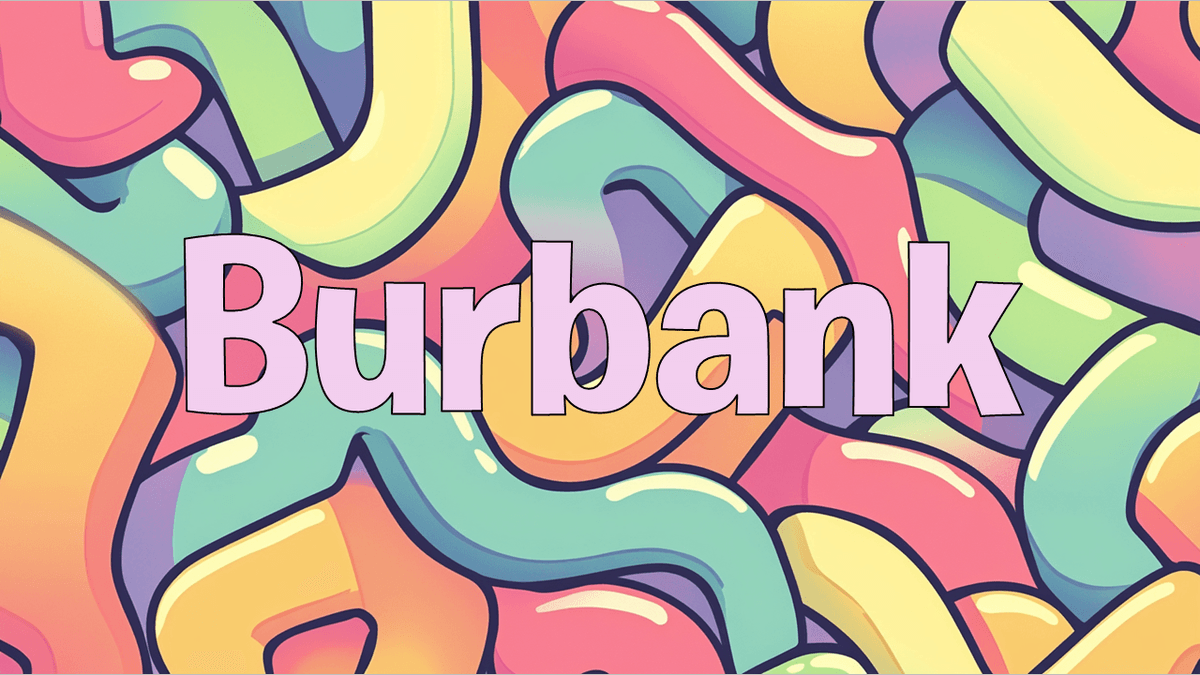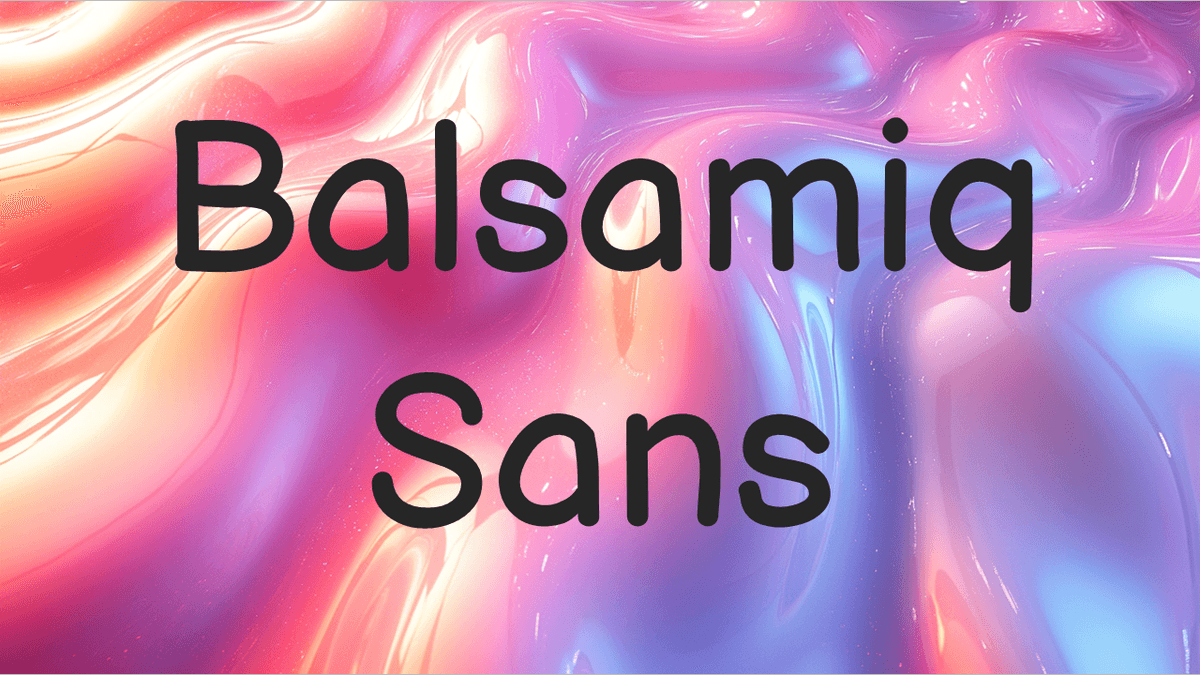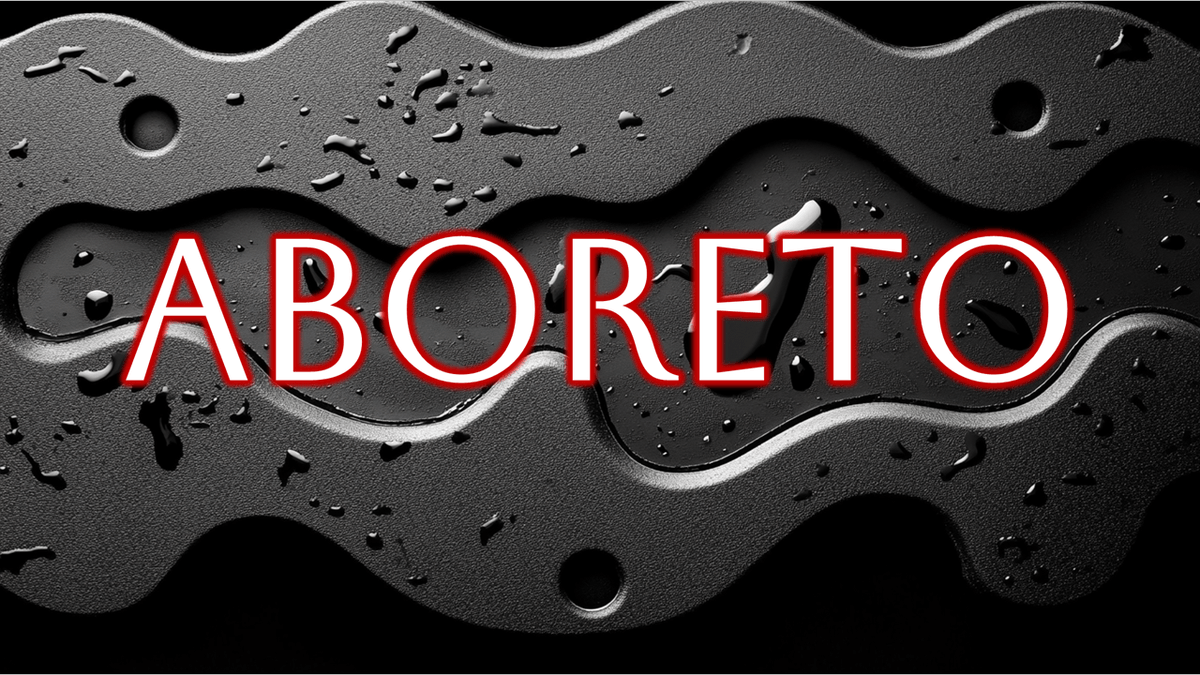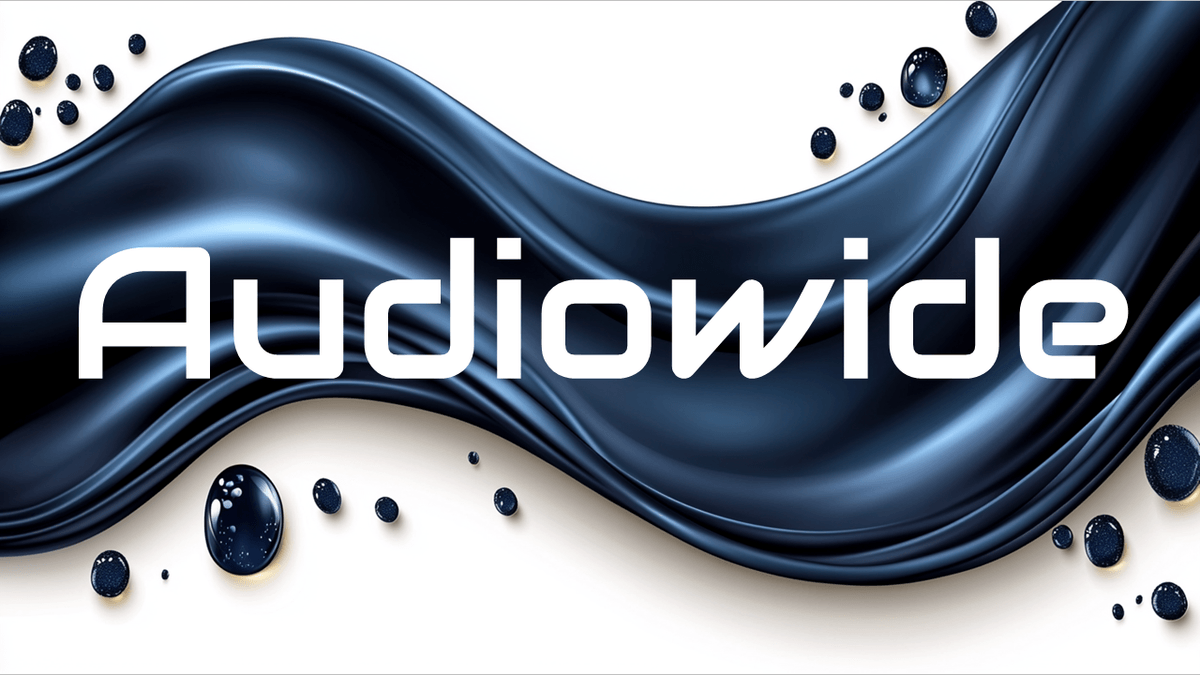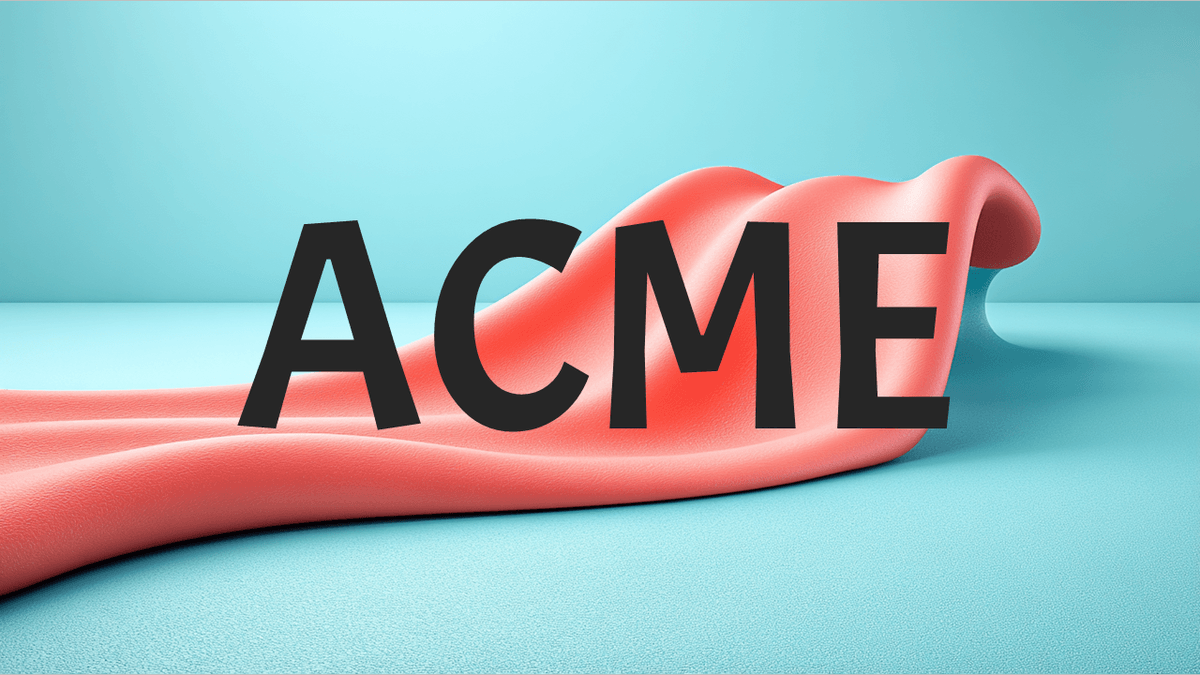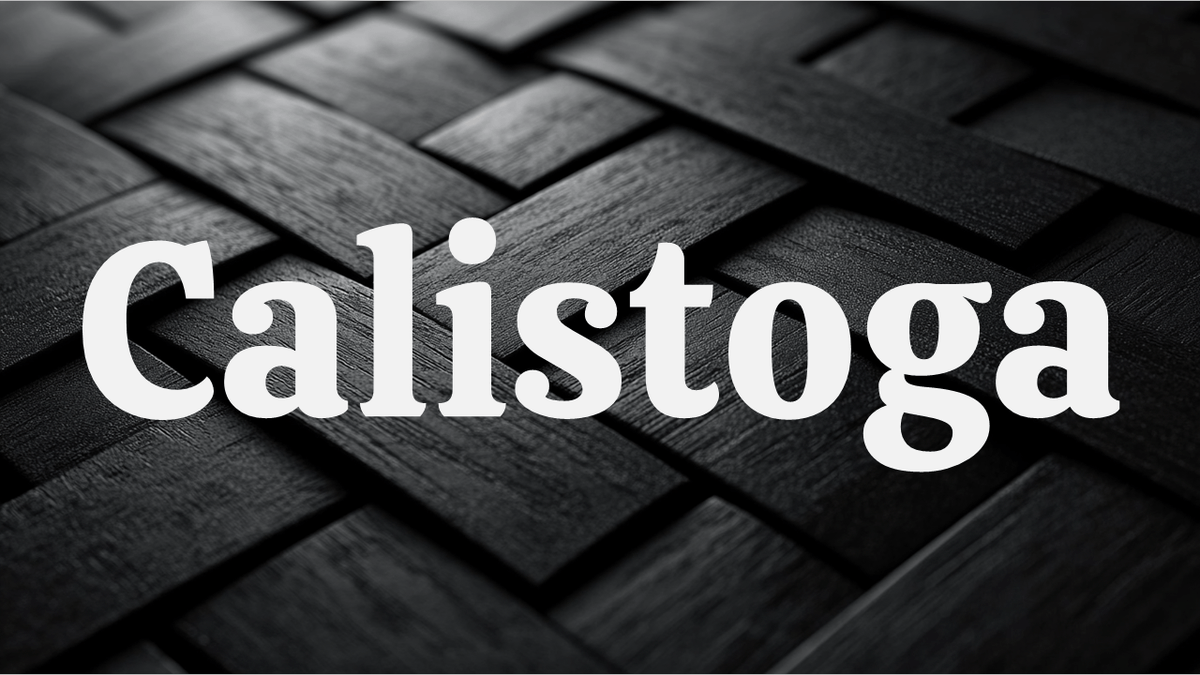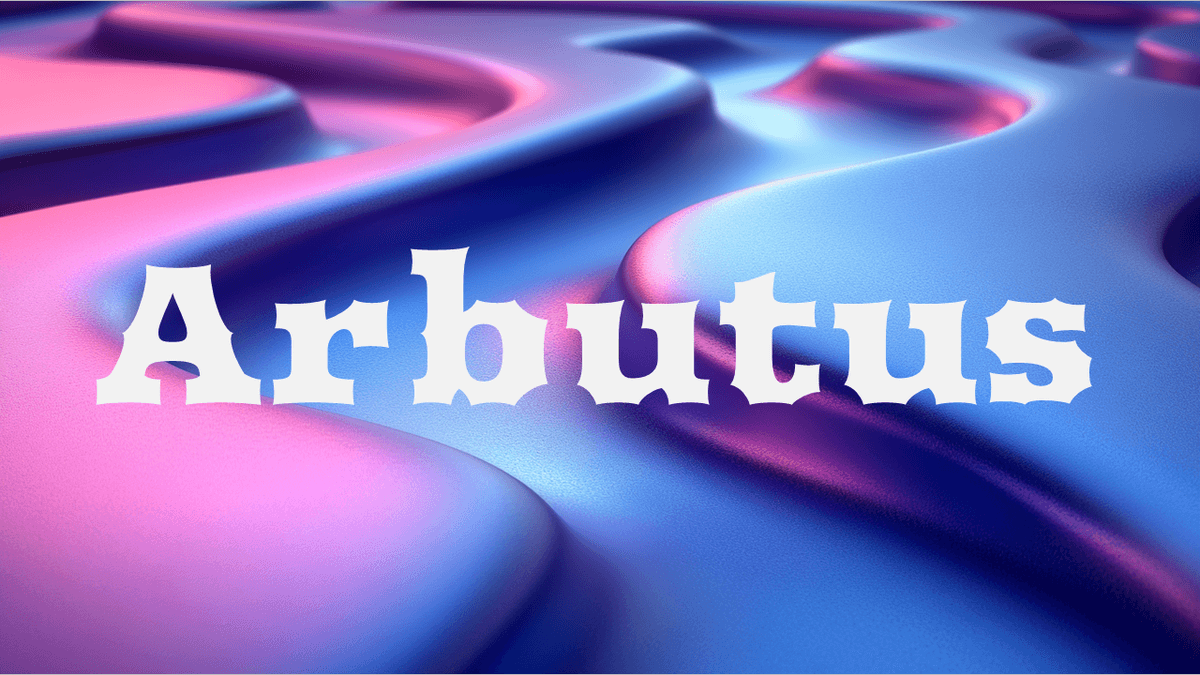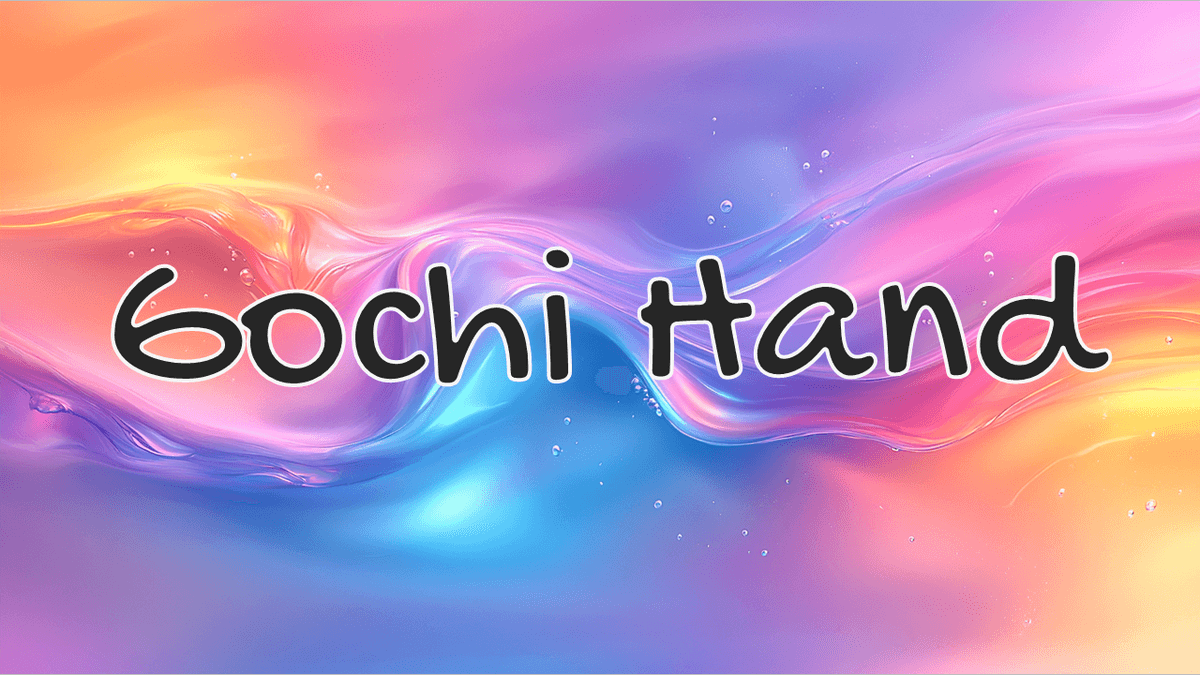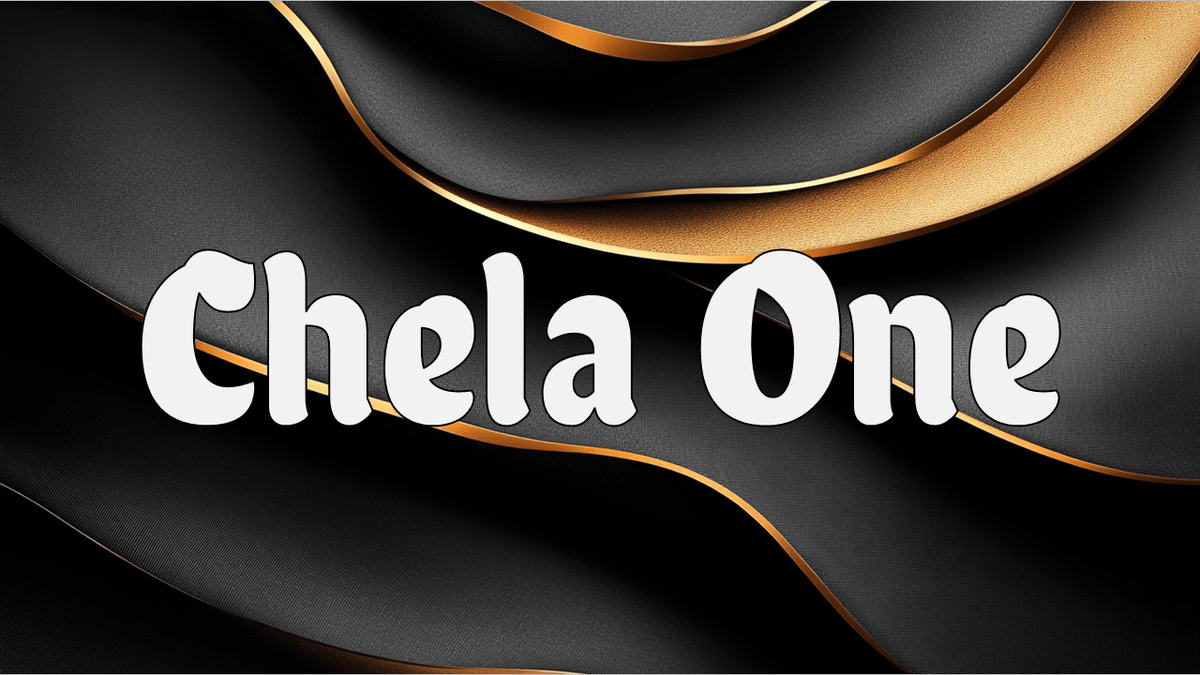
35 Best CapCut Fonts for Engaging Video Edits
The standard CapCut fonts can be a bit plain and repetitive, plus everyone uses them!
If you're searching for the best CapCut fonts to make your video edits more captivating and unique, you're in the right place.
Consider using these fonts before editing your next creative masterpiece. Whether you're aiming for a professional look or a fun, playful vibe, these CapCut fonts will enhance your content.
The 35 Best CapCut Fonts for Engaging Video Edits
Choosing the right font in CapCut can have a huge impact on audience engagement and video aesthetics. Here are the best CapCut fonts you should be using in 2025!
1. Ubuntu Sans
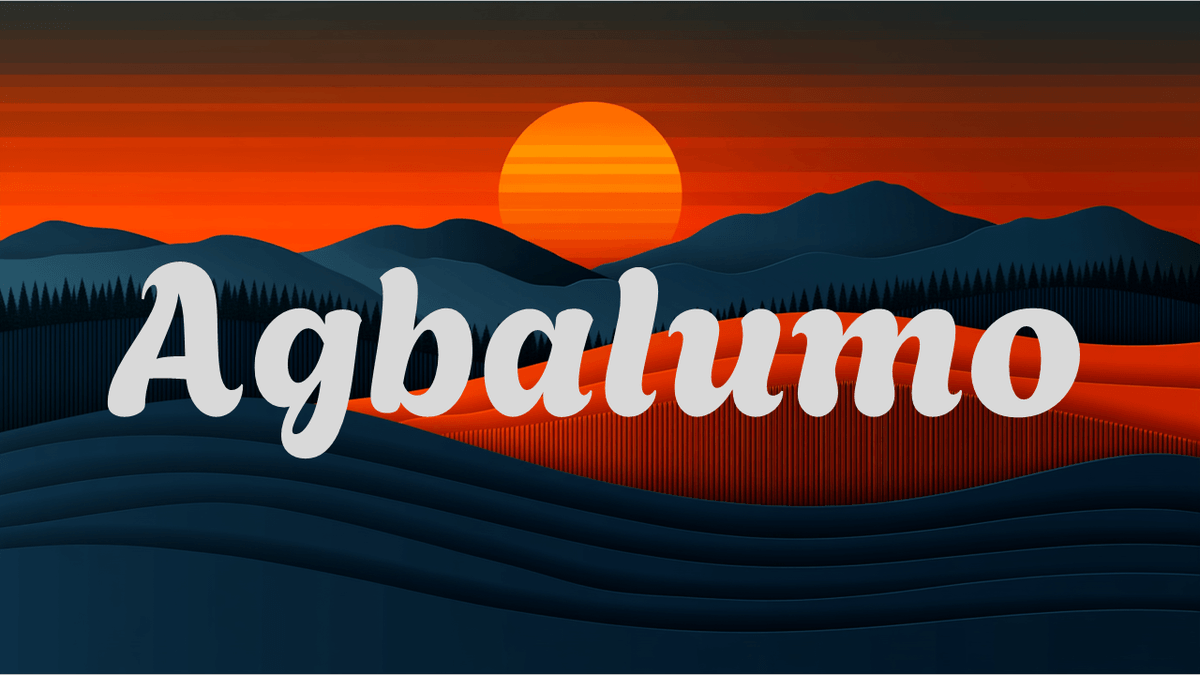
This clean and modern CapCut font brings exceptional readability to videos while maintaining a professional brand presence.
2. Itim
With its playful curves and friendly personality, Itim adds a fun, approachable feel to video titles.
3. Reddit Sans
This CapCut font mirrors the familiar Reddit brand style, making it perfect for social media-focused videos.
4. Sedan SC
Sedan SC's classic serifs and structured design bring timeless elegance to brand videos and formal events.
5. Poetsen One
This bold and creative CapCut font commands attention in video titles with its strong personality.
6. Rubik
A versatile font that offers excellent readability for long-form video content while maintaining brand consistency.
7. Supermercado
This playful CapCut font brings energetic personality to videos with its bouncy, fun character.
8. Calistoga
With its vintage-inspired design, Calistoga adds creative flair to brand videos and special events.
9. Audiowide
This futuristic CapCut font creates eye-catching titles that capture viewers' attention instantly.
10. Jaro
A sharp, contemporary font that gives videos a modern edge while maintaining perfect readability.
11. Poppins
This versatile CapCut font family offers clean lines and professional appeal for any brand video.
12. Nunito
With its rounded edges and friendly personality, Nunito ensures comfortable readability for viewers.
13. Carter One
This bold CapCut font brings fun personality to videos while maintaining strong visual impact.
14. Roboto Mono
A technical-looking font perfect for brand videos that need a modern, coded appearance.
15. Montserrat
This elegant CapCut font provides excellent readability for both titles and body text in videos.
16. Kurale
A graceful serif font that adds sophistication to video titles and formal brand events.
17. League Gothic
This tall, condensed CapCut font creates impactful titles that command viewers' attention.
18. Burbank
A playful font that brings Disney-like creative charm to fun video content.
19. Metaphobic
This geometric CapCut font offers clean lines and modern appeal for brand videos.
20. Chela One
With its chunky, fun personality, this font makes creative video titles pop.
21. Fugaz One
This bold CapCut font creates dynamic titles that grab viewers' attention instantly.
22. Teachers
A handwritten-style font that adds a personal touch to creative videos and informal events.
23. Acme
This friendly CapCut font brings cartoon-like personality to fun video content.
25. Noto Sans
This universal CapCut font ensures consistent brand readability across all video platforms.
26. Oswald
A condensed font that creates strong, impactful titles for professional brand videos.
27. Agbalumo
This flowing CapCut font adds artistic personality to creative video content.
28. Amita
A script font that brings elegant flair to special events and romantic video themes.
29. Pirata One
This decorative CapCut font creates adventurous titles for themed videos.
30. Berkshire Swash
An elegant script font that adds sophistication to brand videos and formal events.
31. Balsamiq Sans
This handwritten-style CapCut font brings a fun, casual personality to creative videos.
32. Gochi Hand
A playful handwritten font that adds authentic personality to casual video content.
33. Aboreto
This modern geometric CapCut font creates sophisticated titles for upscale brand videos.
34. Special Elite
A vintage typewriter font that brings unique personality to creative video projects.
35. Arbutus
This distinctive CapCut font creates memorable titles with its bold, creative character.
Wrapping Up
Today we explored the best CapCut fonts to enhance your video edits.
From stylish and high-fashion fonts to playful and professional ones, each font has its unique charm and utility.
Whether you're aiming to convey elegance, fun, or professionalism, there's a CapCut font here for you!